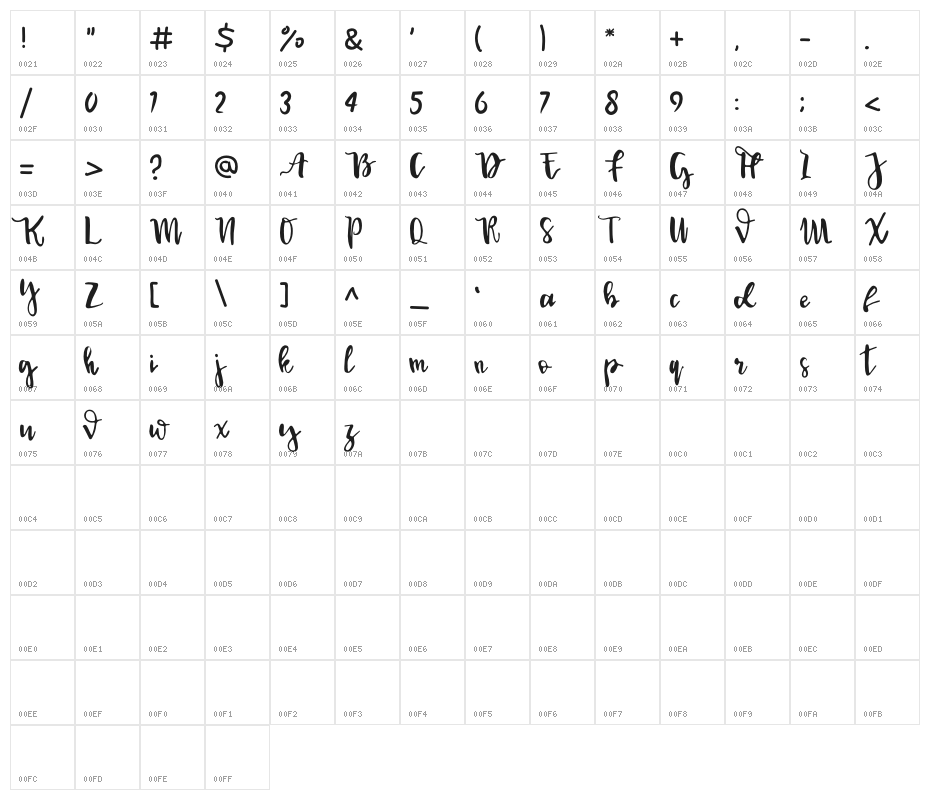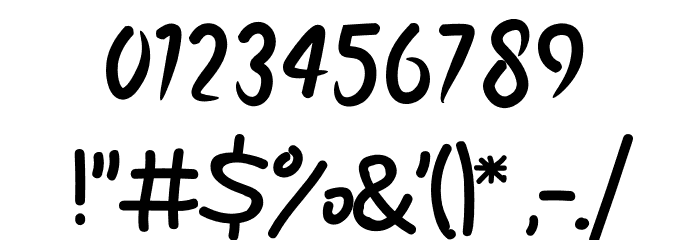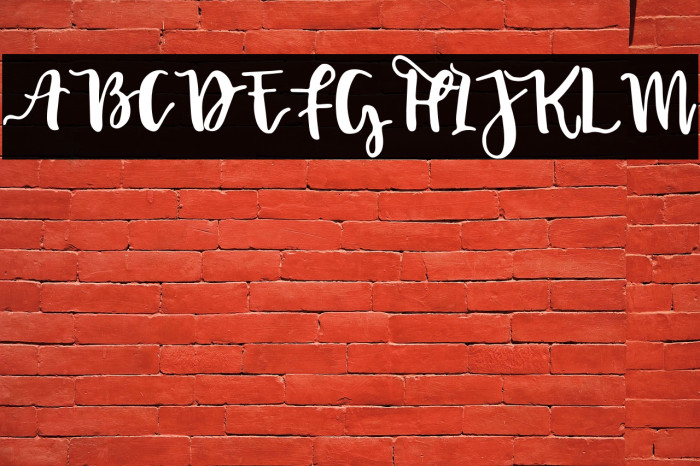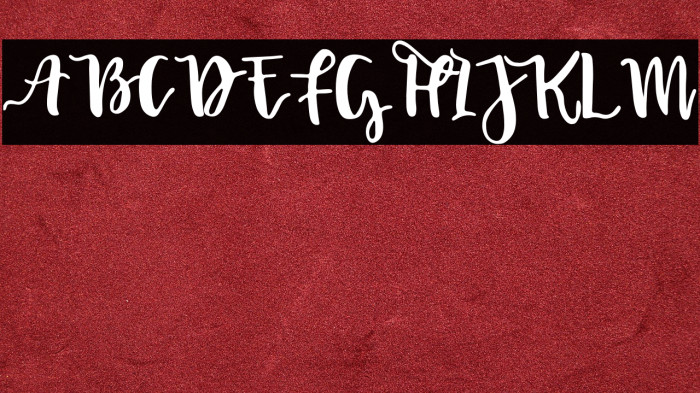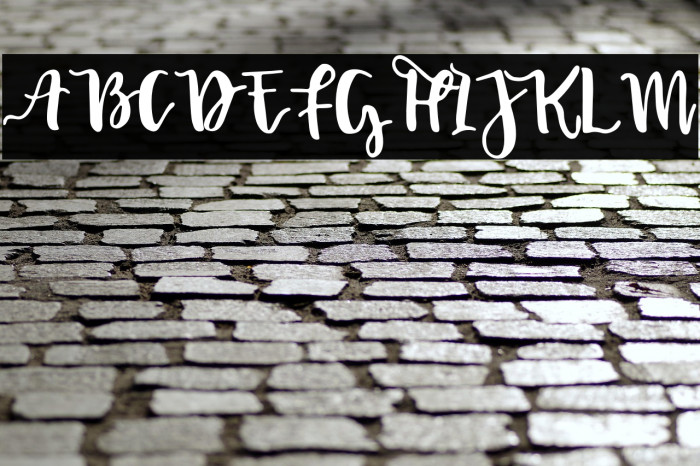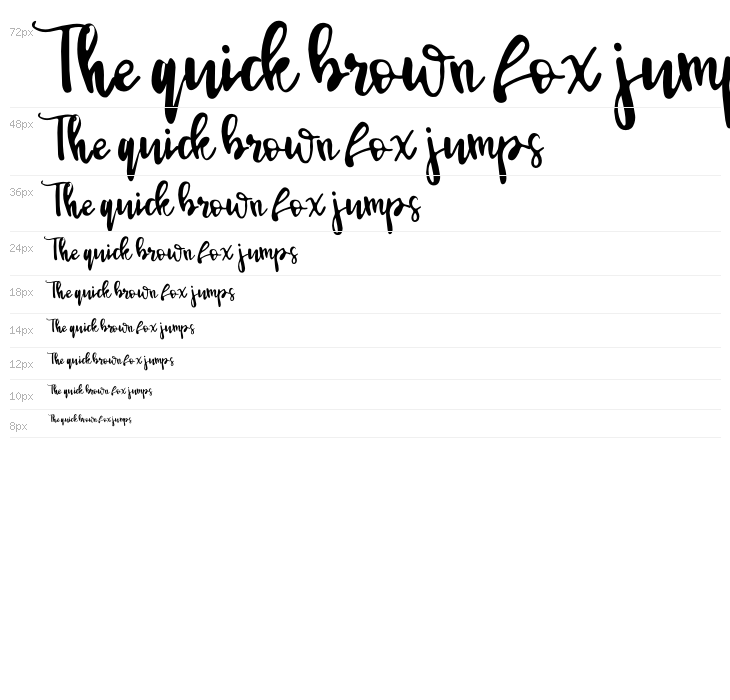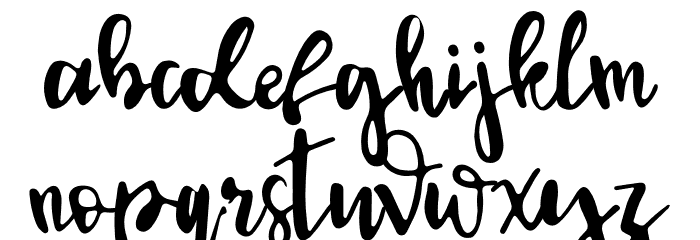
Syahara Font
Syahara Description
This font features a lively and expressive handwritten style, characterized by its fluid and dynamic strokes. The letters are bold and slightly irregular, giving it a personal and artistic touch. The uppercase letters are distinctively stylized with unique flourishes, while the lowercase letters maintain a consistent flow. Numbers and special characters are designed to match the playful and creative aesthetic, making it suitable for projects that require a touch of individuality and charm.